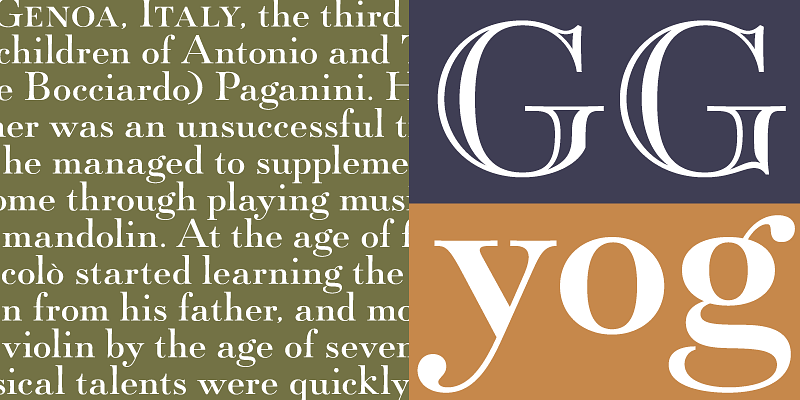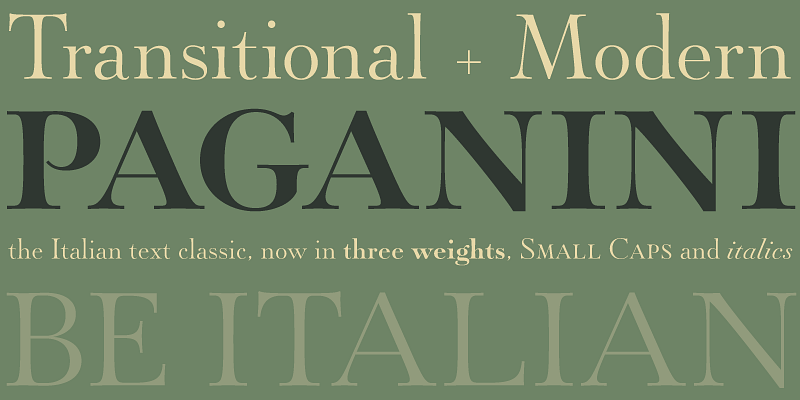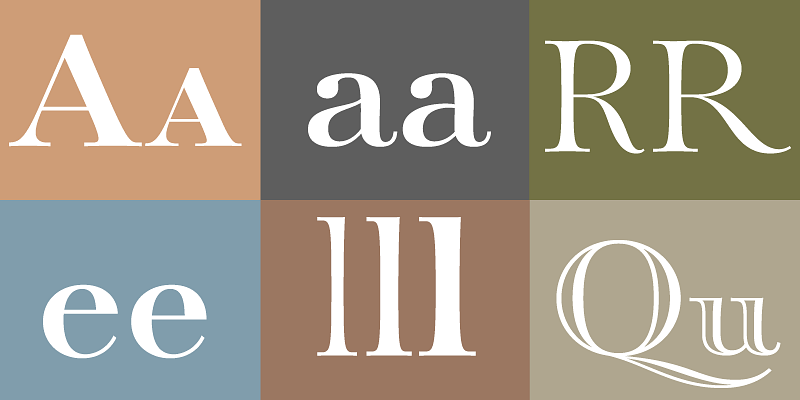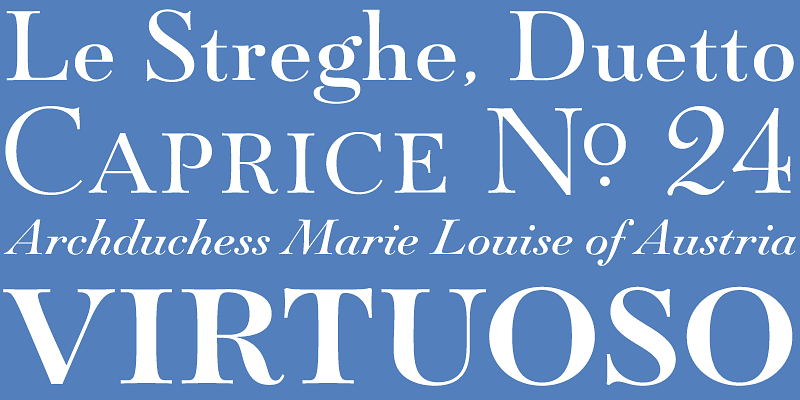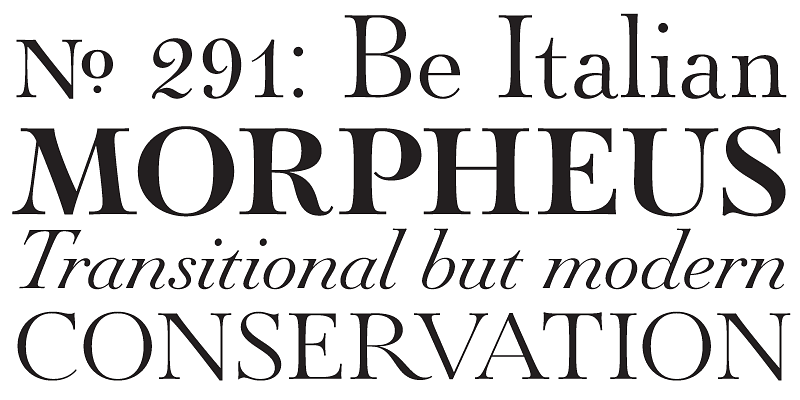
Designed at Nebiolo in 1928, Paganini defies standard categorization. While it definitely is a classic foundry text face with obvious roots in the Italian Renaissance, its contrast reveals a clear underlying modern influence.